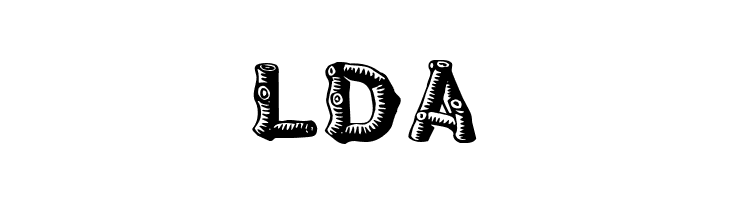
martin kamila - demo version Font
- Font: martin kamila - demo version
A playful, hand-drawn font with a rough, textured appearance and whimsical style.